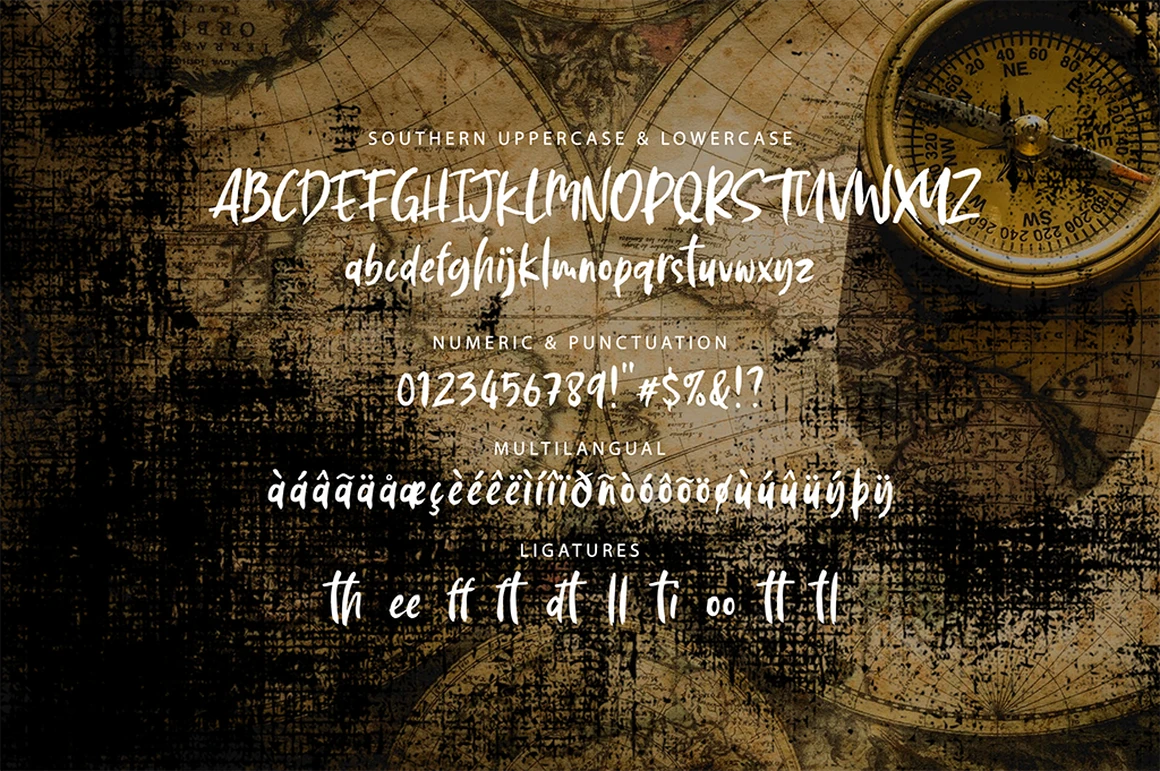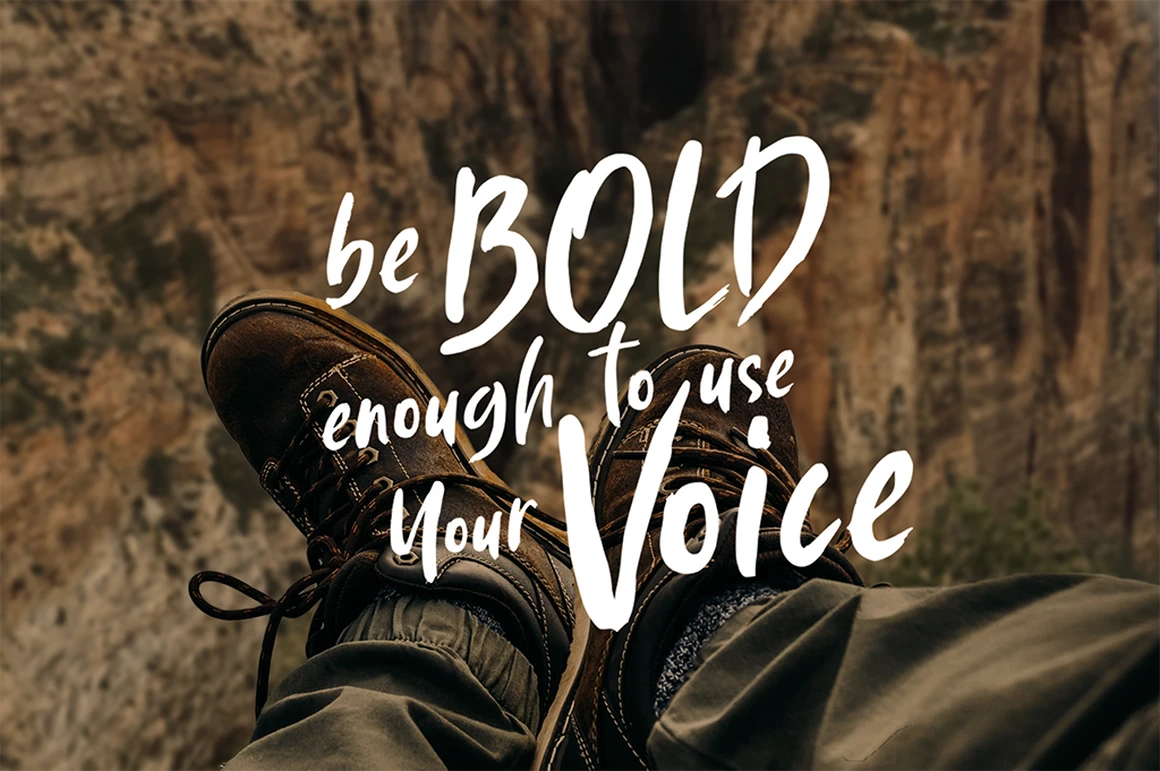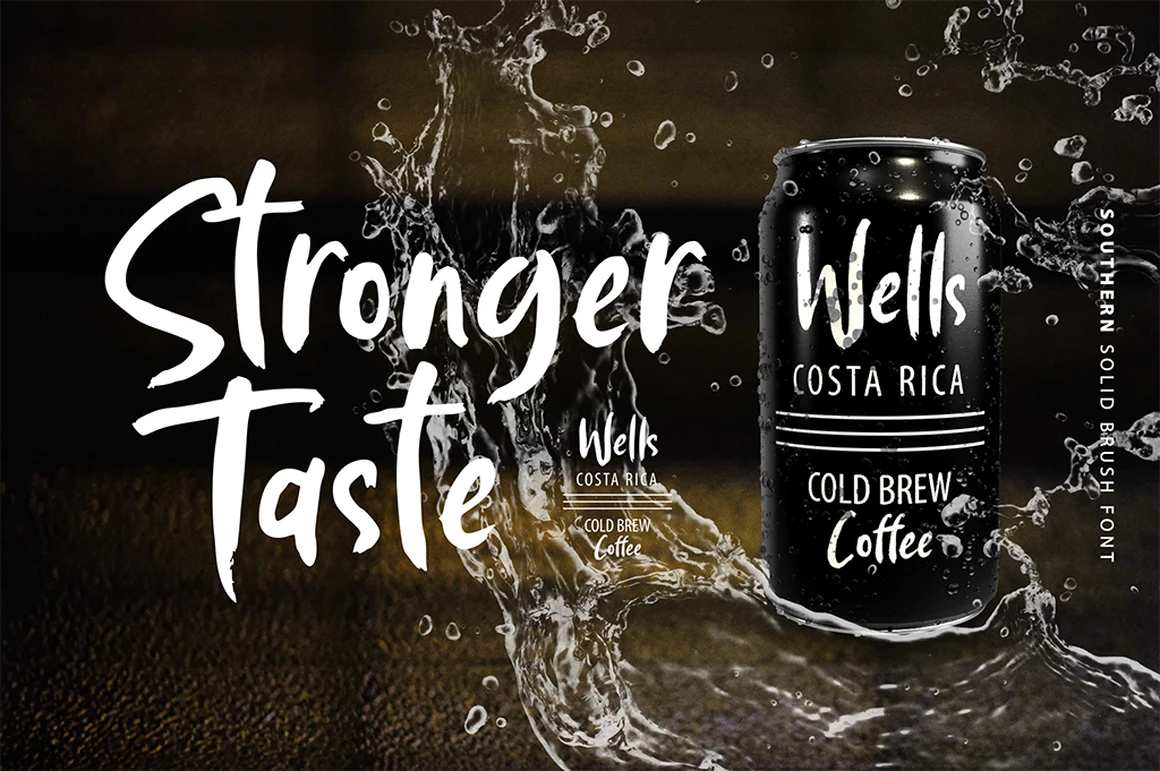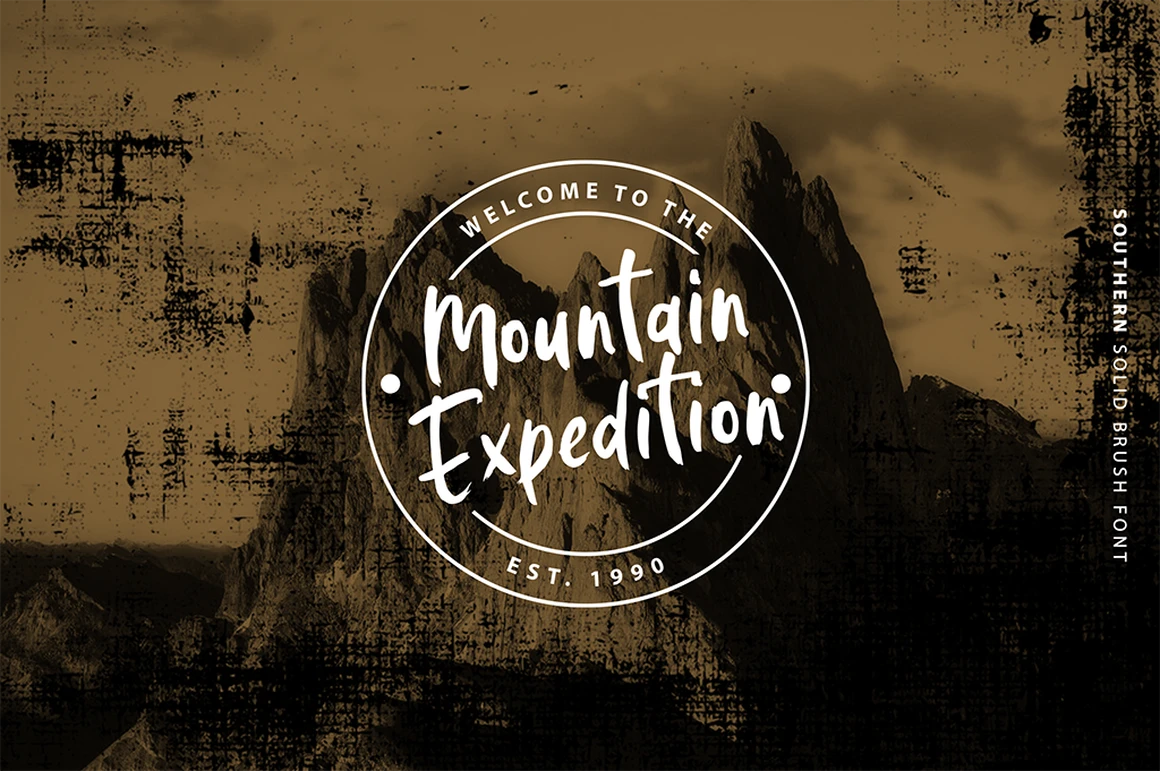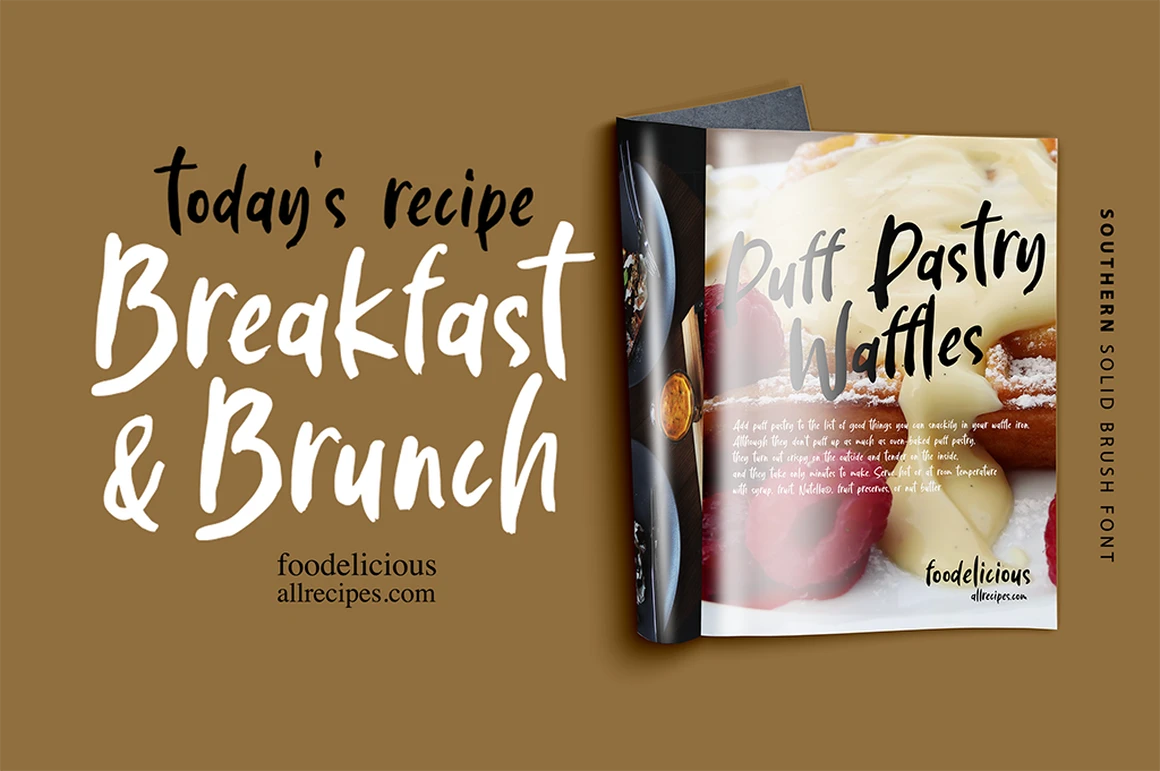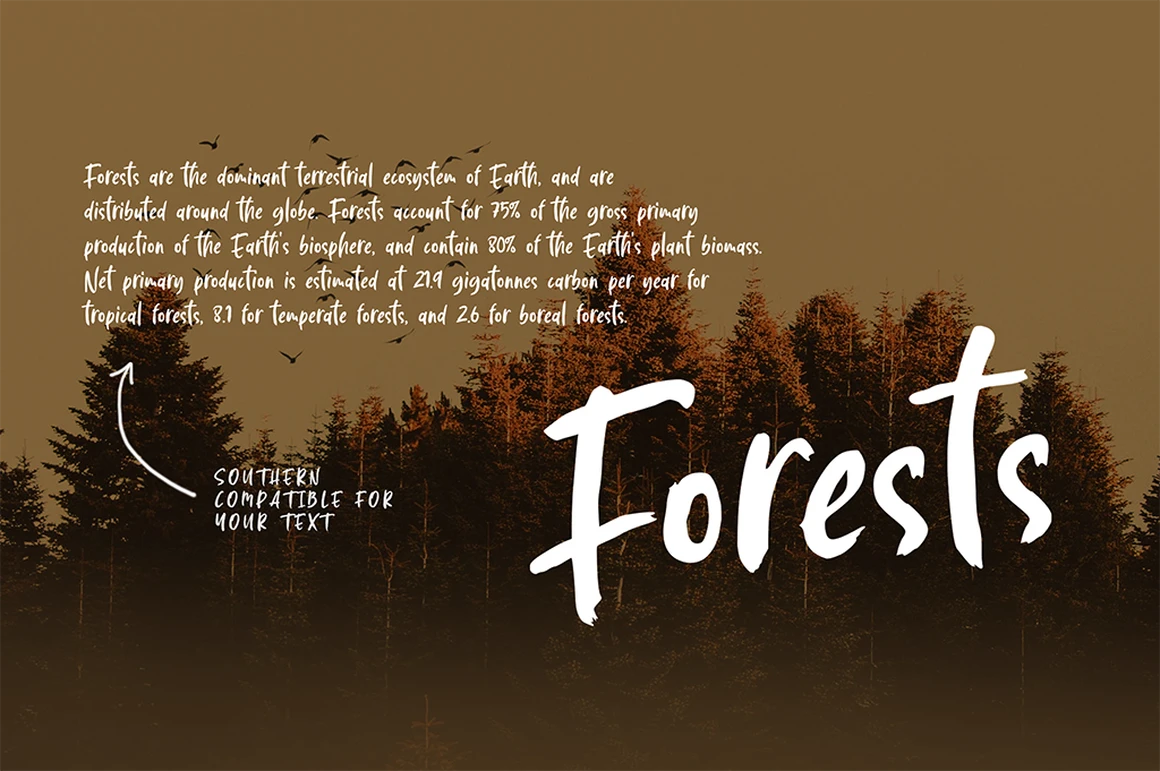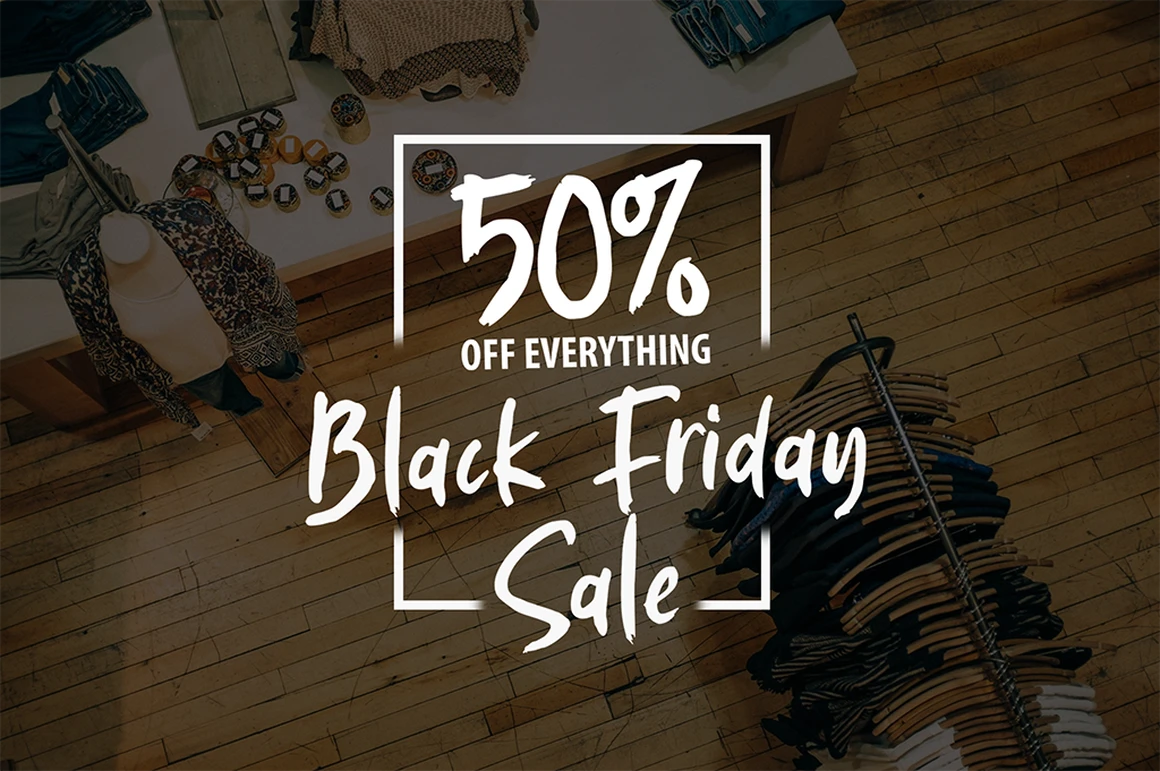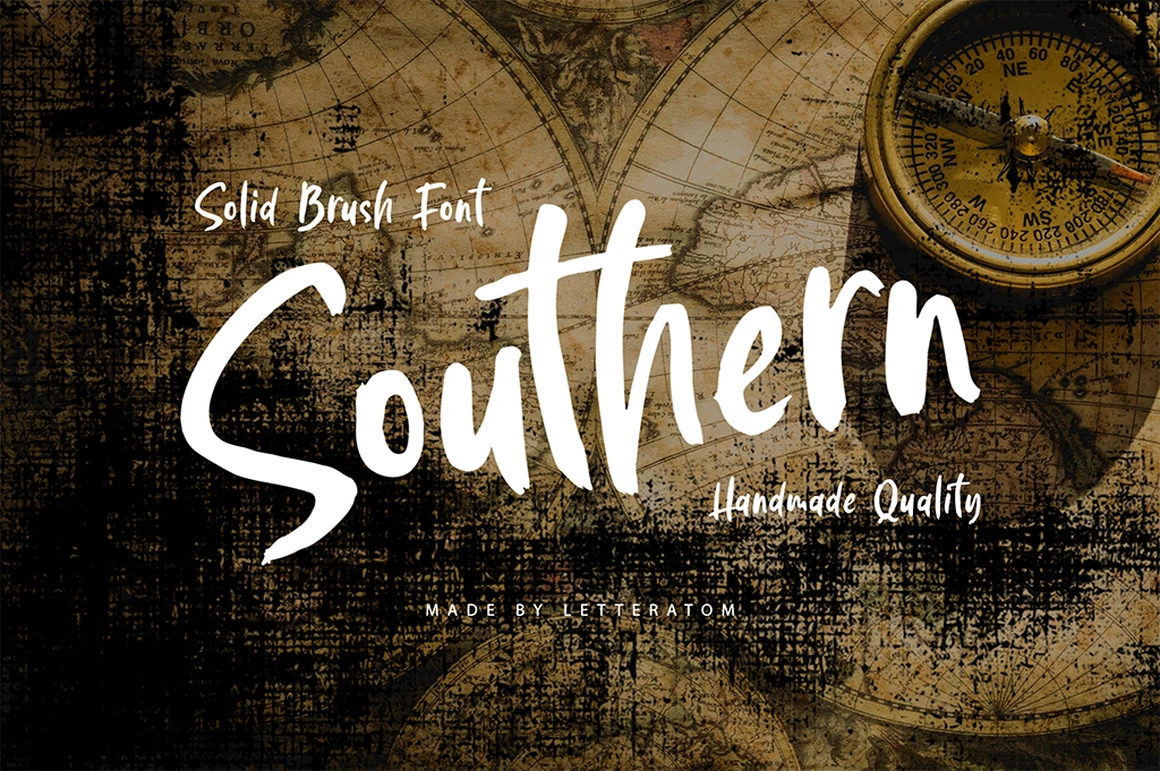
Southern is a solid brush font that is made manually with brush strokes on paper. Unique in character and gives a prominent impression, it is suitable for your various design needs. With good kerning this font can also be used for paragraph writing, creating a character and bold design, this will give a huge impact to your advertising media needs.